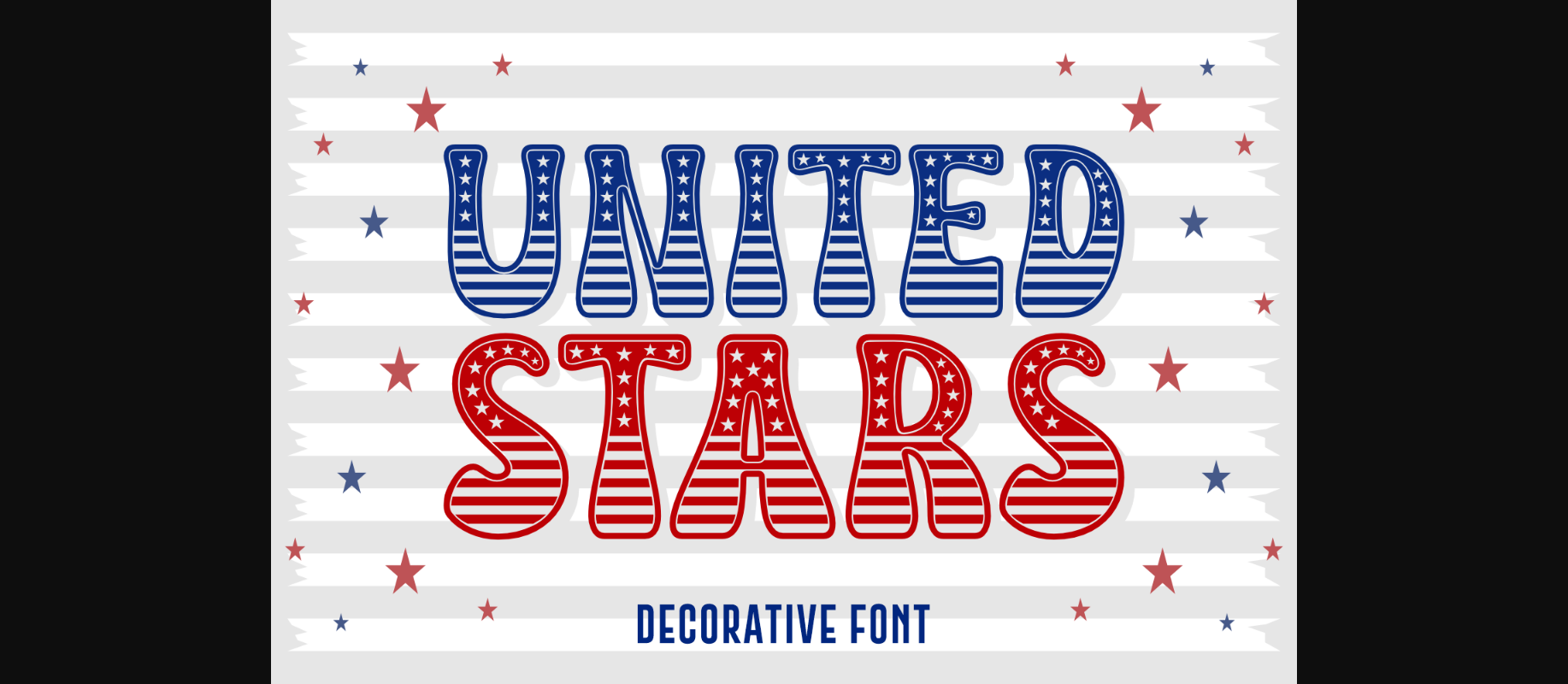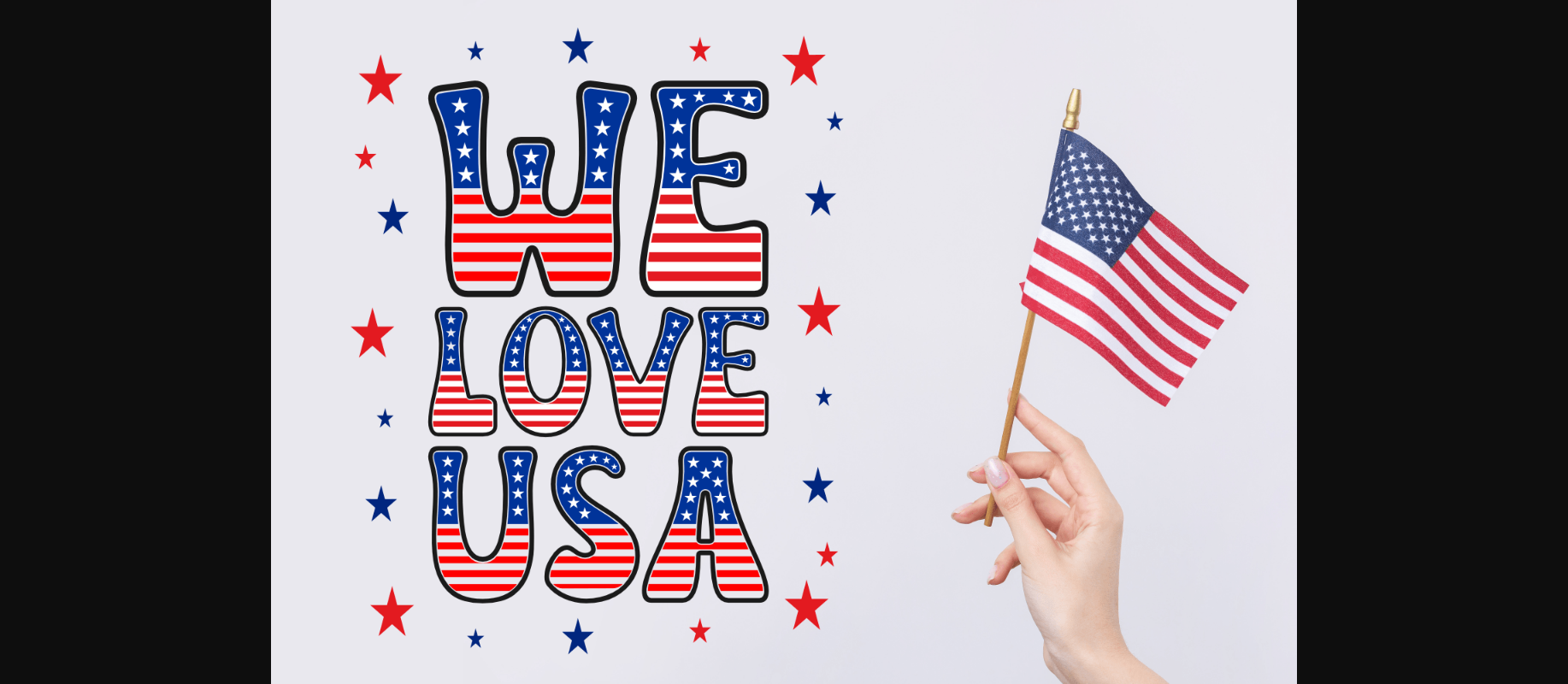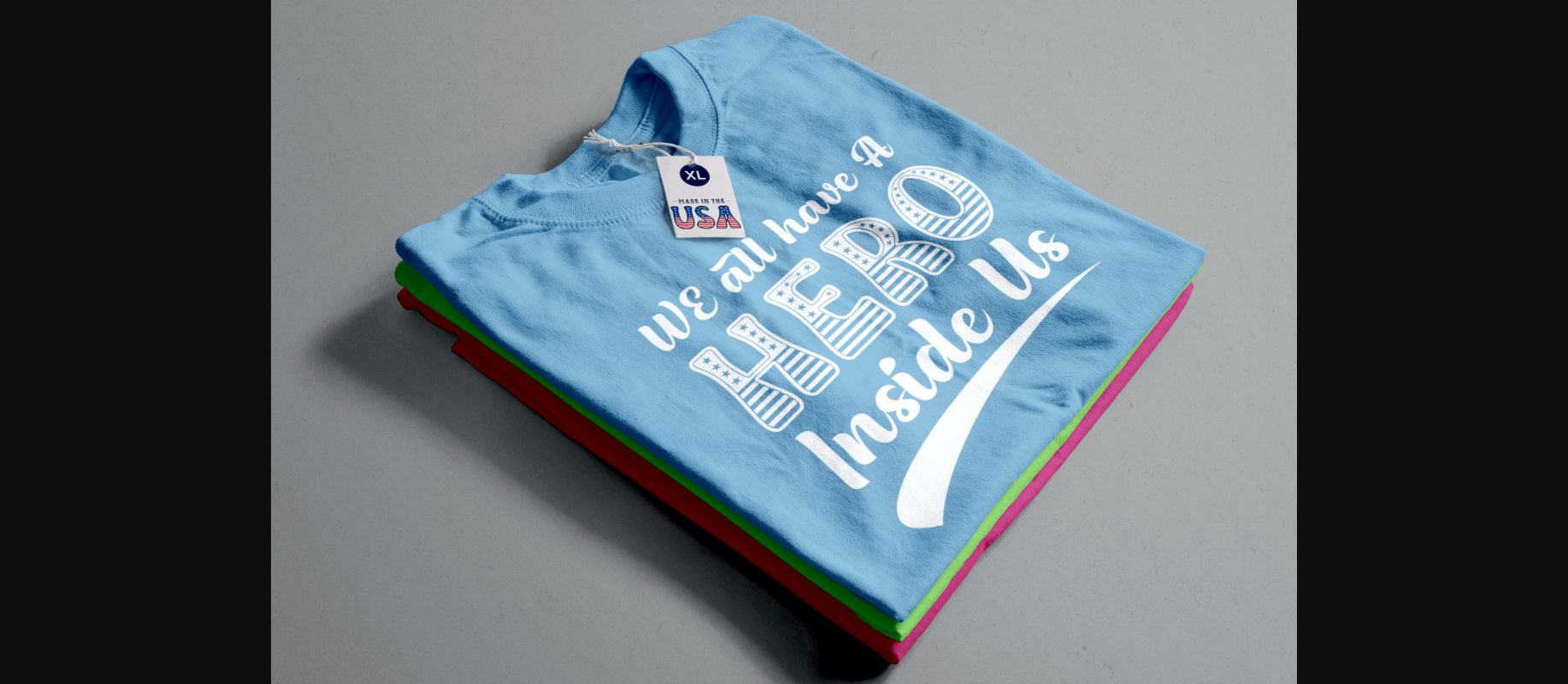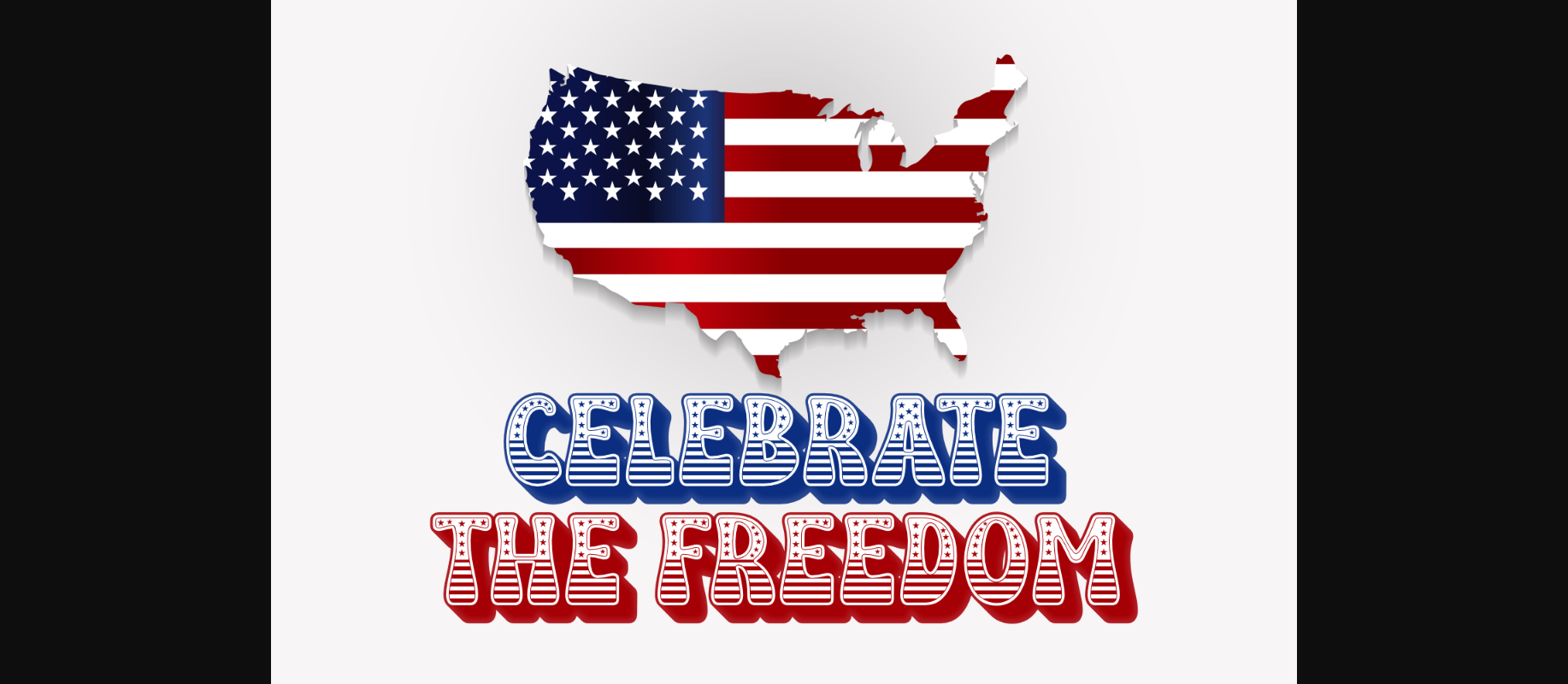
HomeDecorative FontsUnited Stars Font Decorative Fonts United Stars Font FacebookXPinterestWhatsApp 1 of 6 ... United Stars Font Poster 2... United Stars Font Poster 3... United Stars Font Poster 4... United Stars Font Poster 5... United Stars Font Poster 6... About United Stars Font United Stars is a fun and festive decorative font. Celebrate the 4th of July in style with this awesome typeface! These striped and starry characters are perfect for all kinds of patriotic design projects! DOWNLOAD NOW People also explored Leaves Decora Font Lovely Pretty Font Pretty Lady Font Biscuits Font Outlander Brush Script Font Chascarillo Carte Blanche Wings of Fire Font Benetton Arenty Font 260 0 TagsUnited Stars Font Previous articleLeaf FontNext articleMonela Font LEAVE A REPLY Cancel reply Comment: Please enter your comment! Name:* Please enter your name here Email:* You have entered an incorrect email address! Please enter your email address here Website: Save my name, email, and website in this browser for the next time I comment. Personal Use Free Child Writing Free Personal Use Free Read more about this font Love Heart Personal Use Free Read more about this font Cheese Matcha Font Personal Use Free Read more about this font Persephone Free Personal Use Free Read more about this font BLOG Free Fonts Risk: Why Free Fonts Can Be Dangerous for Designers Free Fonts Risk: Why Free Fonts Can Be Dangerous for Designers Using free fonts is a common practice in web and graphic design. However, the... To increase your work productivity, choose the most readable fonts. Exploring Font Trends How to Install and Use Fonts on Windows, macOS, and Web Projects